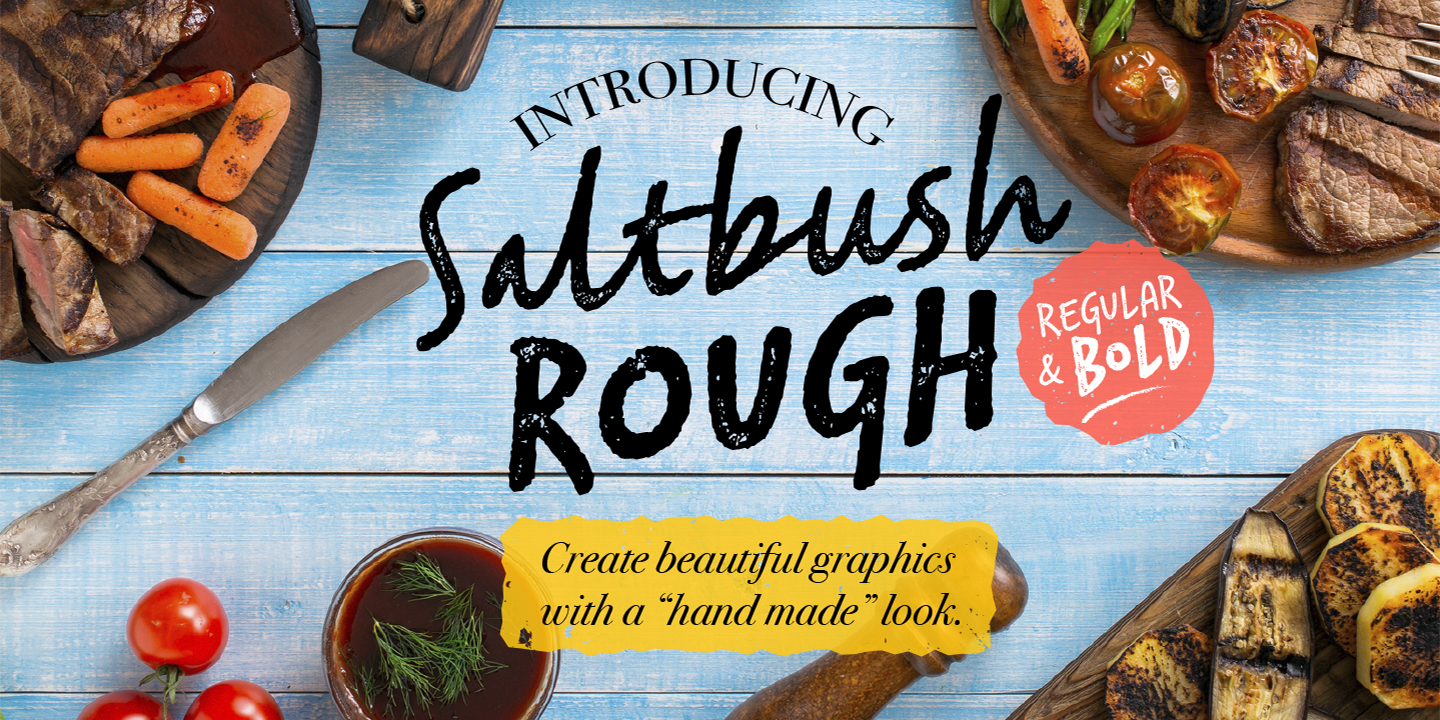
Saltbush Rough Font is perfect for rugged outback tourism branding, Australian bush adventure tour materials, drought-resistant landscaping company communications, desert survival training documentation, frontier heritage museum exhibits, arid climate research presentations, remote station property signage, bushland conservation organization graphics, outback hospitality venue promotions, and authentic wilderness lifestyle marketing campaigns.
What makes Saltbush Rough Font so exciting is its extraordinary ability to capture the hardy resilience and weathered beauty of life in the world's most challenging arid environments through ruggedly textured letterforms that seem carved by sandstorms and seasoned by decades of surviving in landscapes where only the strongest plants and most adaptable creatures can flourish. This font embodies the essence of desert survival and outback authenticity, featuring weathered characters that appear shaped by the same harsh conditions that create the remarkable saltbush plants that thrive where other vegetation cannot survive, drawing sustenance from saline soils and enduring temperature extremes that would defeat lesser species. The naturally weathered letter shapes create an atmosphere of frontier toughness and environmental adaptation, making every word feel like it carries the wisdom of desert dwellers and the promise of discovering how life finds ways to flourish even in the earth's most unforgiving environments.
The Saltbush Rough Font family includes Light, Regular, Medium, Bold, and Extra Weathered variations, along with desert symbols and outback-inspired decorative elements. Each style maintains the font's distinctive rugged character while offering versatility for different wilderness applications, from subtle survival guide text to bold adventure headlines that celebrate the remarkable resilience of life in arid landscapes and desert environments.
This resilient typeface brings authentic desert survival aesthetics to contemporary design projects. The Saltbush Rough Font Free Download provides designers with an invaluable resource for creating memorable brand identities that communicate toughness, environmental adaptation, and wilderness authenticity. Whether you're developing outback adventure branding, designing desert conservation materials, or creating arid climate communications, this font delivers unmatched ruggedness and desert credibility.
The expertly weathered letterforms in Saltbush Rough Font feature natural textures and survival-tested proportions that mirror the adaptive strategies of desert vegetation and the time-tested wisdom of people who have learned to thrive in environments where survival depends on conservation, adaptation, and respect for nature's harsh but honest lessons. Each character has been designed to maintain perfect readability while expressing the environmental toughness and practical wisdom that define authentic desert living. The font's distinctive personality makes it ideal for applications requiring genuine wilderness authority and arid environment appeal.
Outback tourism and environmental professionals appreciate how Saltbush Rough Font effortlessly communicates resilience, environmental authenticity, and wilderness expertise while appealing to adventure seekers and environmental enthusiasts who understand that some of Earth's most valuable lessons about survival and adaptation come from studying life in the world's harshest environments. The comprehensive character set includes desert symbols, survival indicators, outback decorations, and extensive international language support, ensuring global compatibility while preserving its distinctive saltbush identity. This makes it an invaluable resource for outback tour operators, environmental research organizations, desert conservation groups, and any institution seeking typography that embodies the fundamental values of environmental resilience, adaptation wisdom, and the kind of rugged authenticity that comes from understanding that true strength is not about avoiding hardship, but about learning to thrive in challenging conditions while maintaining respect for the natural forces that shape both landscapes and character through the patient endurance of those who choose to live in harmony with environments that demand nothing less than complete honesty, practical wisdom, and the kind of quiet courage that enables life to flourish even where the conditions seem impossible for survival.